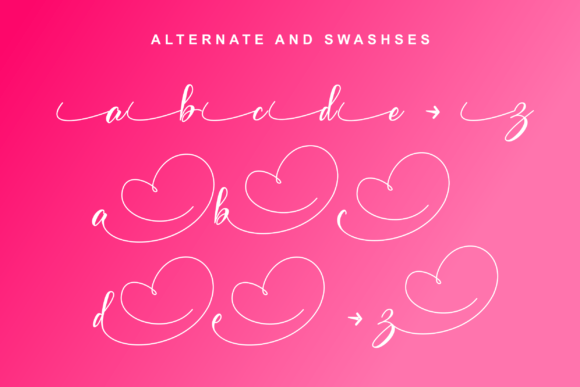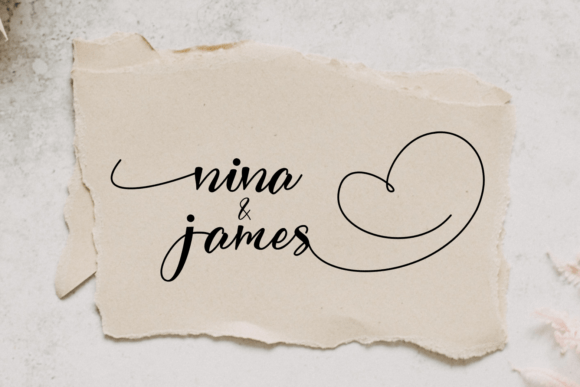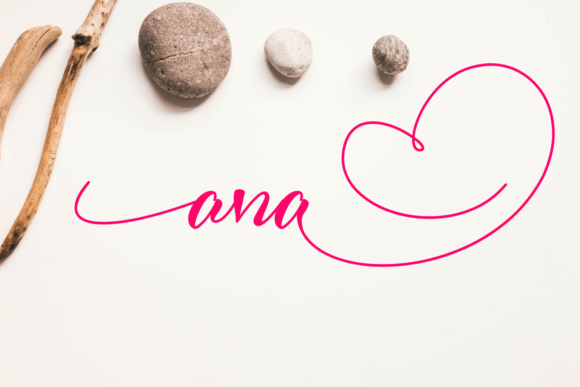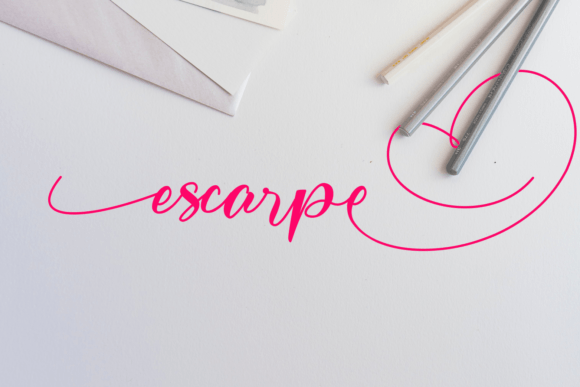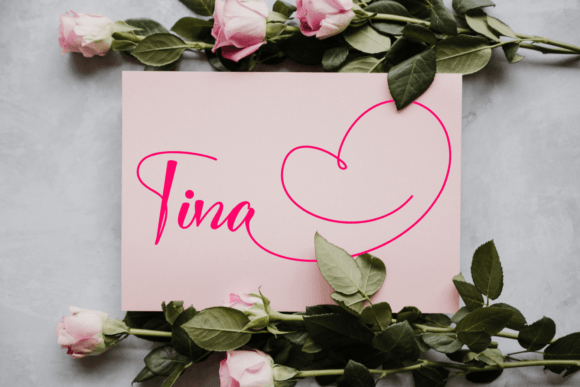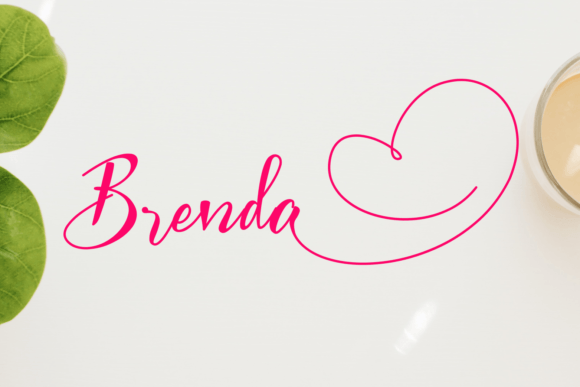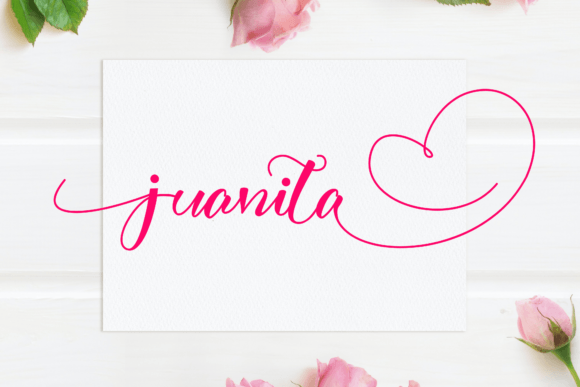
Love Font
What Is Love Font?
Love Font is a romantic calligraphy script designed to add elegance and warmth to any creative project. Each letter has a flowing style that looks like it was written by hand. The characters dance along the baseline, creating a lively, graceful effect that draws attention without feeling too bold.
This typeface is perfect for designers who want to create work that feels special and refined. Whether you’re designing wedding materials or branding luxury products, Love Font brings sophistication to every detail.
Love Font is incredibly versatile. For example, it shines on wedding invitations, save-the-date cards, and reception menus. Its delicate strokes set a romantic tone that guests will remember.
If you design logos, Love Font helps you create a signature look. Boutique shops, florists, and upscale brands often use calligraphy fonts to build trust and convey a sense of luxury. This font is an ideal choice because it feels both elegant and approachable.
Additionally, Love Font looks stunning in social media graphics. You can use it to create inspirational quotes, event announcements, or product promotions. The graceful letters will help your posts stand out and attract attention.
Product packaging also benefits from Love Font’s charming style. Whether you create handmade candles, artisanal chocolates, or custom gifts, this typeface adds a premium feel that makes products more desirable.
Why Should You Choose Love Font?
One of the best features of Love Font is its PUA encoding. This means you can access all the glyphs, ligatures, and swashes without special software. As a result, you have complete creative freedom to customize your designs.
Another advantage is how easy it is to pair this font with others. For a clean, modern look, combine it with simple serif or sans-serif typefaces. This approach balances the decorative calligraphy with clear supporting text, keeping your work easy to read.
Love Font helps you express feelings of romance and sophistication. Its elegant, handwritten style makes your work feel genuine and thoughtful. This connection is especially important for weddings, events, and premium brands.
The smooth strokes and balanced letters also create a polished look. Even simple layouts feel more luxurious when you use this font.
When customers or clients see your designs, they will notice the care you put into choosing high-quality typography. This attention to detail builds trust and shows your dedication to your craft.
Love Font is more than a calligraphy script—it’s a powerful tool that helps you share your ideas with beauty and style. From wedding invitations to branding materials, this font adapts to many uses and always leaves a lasting impression.